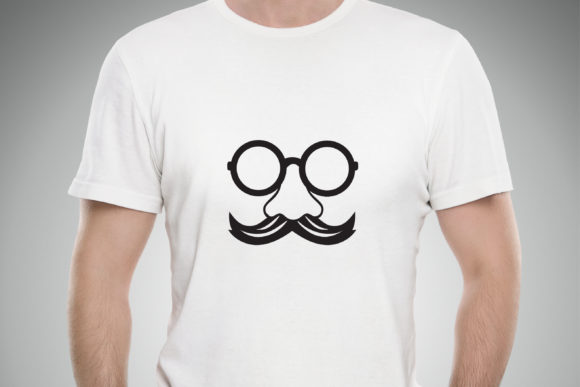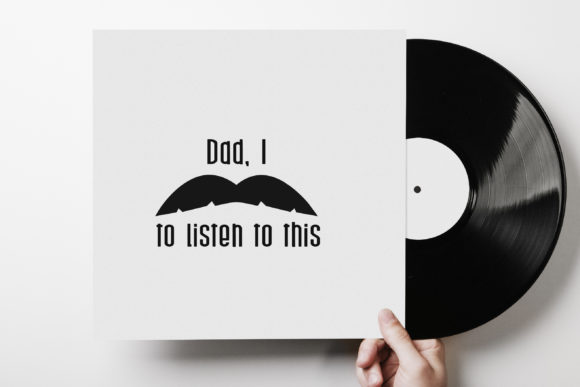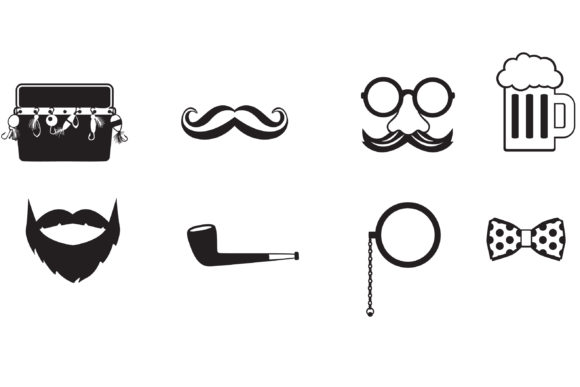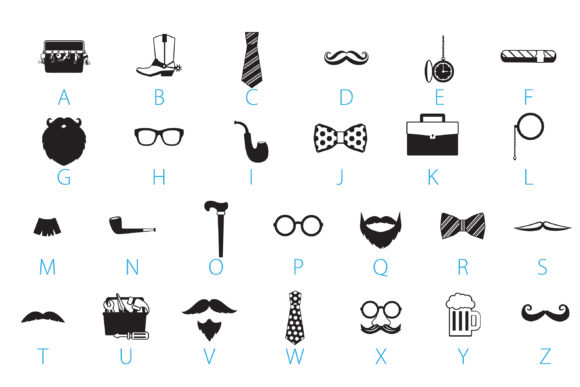
Dad Props Font: A Stunning Dingbats Font with a Vintage Twist
Are you a designer or crafter looking for a unique and eye-catching font to add to your collection? Look no further than Dad Props Font, a stunning dingbats font with a vintage twist. In this article, we’ll take a closer look at what makes Dad Props Font so special and why it’s a must-have for anyone who loves creative typography.
What is Dad Props Font?
Dad Props Font is a dingbats font that features a range of vintage-inspired illustrations and icons. From tools and gadgets to food and drink, this font has everything you need to add a touch of nostalgia to your designs. With its unique blend of modern and vintage elements, Dad Props Font is perfect for designers and crafters who want to create something truly special.
Key Features of Dad Props Font
- Vintage-inspired illustrations: Dad Props Font features a range of illustrations that are inspired by the past. From classic cameras to vintage bicycles, this font has a range of icons that will add a touch of nostalgia to your designs.
- Unique dingbats characters: Unlike traditional fonts, Dad Props Font features a range of dingbats characters that can be used to add visual interest to your designs.
- Easily customizable: With Dad Props Font, you can easily customize the font to suit your needs. Whether you want to change the color, size, or style, this font is easy to work with.
- Perfect for crafters and designers: Whether you’re a professional designer or a crafter who loves to make things, Dad Props Font is perfect for anyone who wants to create something special.
Uses for Dad Props Font
So, what can you use Dad Props Font for? The possibilities are endless! Here are a few ideas to get you started:
- Invitations and greeting cards: Add a touch of vintage charm to your invitations and greeting cards with Dad Props Font.
- Signs and posters: Use Dad Props Font to create eye-catching signs and posters that will grab attention.
- Social media graphics: Add a touch of personality to your social media graphics with Dad Props Font.
- Craft projects: Whether you’re making a scrapbook, a quilt, or a piece of jewelry, Dad Props Font is perfect for adding a personal touch to your craft projects.
Why Choose Dad Props Font?
So, why should you choose Dad Props Font over other fonts? Here are a few reasons:
- Unique and eye-catching: Dad Props Font is a truly unique font that will add a touch of personality to your designs.
- High-quality illustrations: The illustrations in Dad Props Font are high-quality and detailed, making them perfect for printing and digital use.
- Easily readable: Despite its vintage twist, Dad Props Font is easily readable, making it perfect for use in a range of applications.
In conclusion, Dad Props Font is a stunning dingbats font with a vintage twist that is perfect for designers and crafters. With its unique illustrations, easily customizable characters, and range of uses, this font is a must-have for anyone who loves creative typography. Whether you’re looking to add a touch of nostalgia to your designs or simply want to create something special, Dad Props Font is the perfect choice.